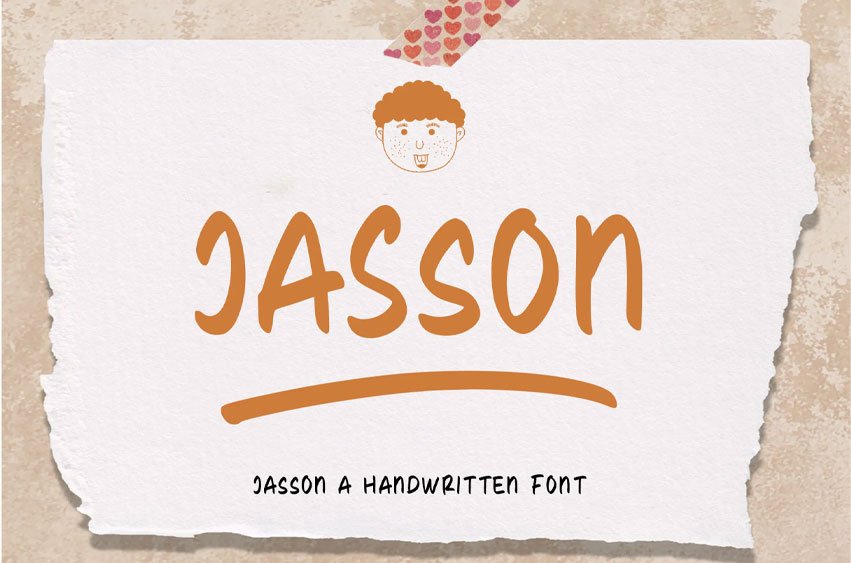
Jasson Font
Jasson Font is Handwritten Font from Drizy studio. Offering all the basic styles you will need for a successful project.
Uppercase & Lowercase Numeral & Punctuation Multilingual Ligatures